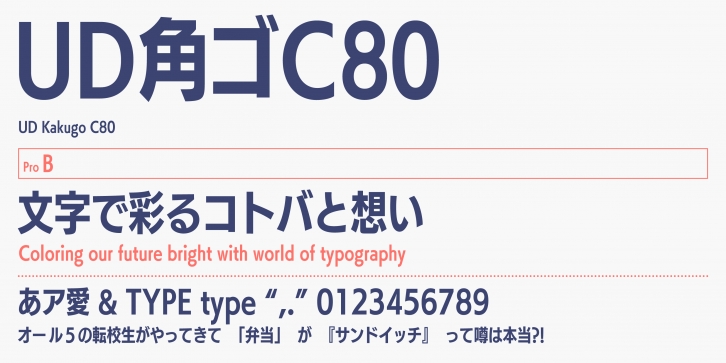
In order to display a large amount of information legibly and beautifully in a limited space, this typeface is designed at 80% of the width of UDKakugo_Large. It can be used effectively to display captions and explanatory notes in smaller sizes.